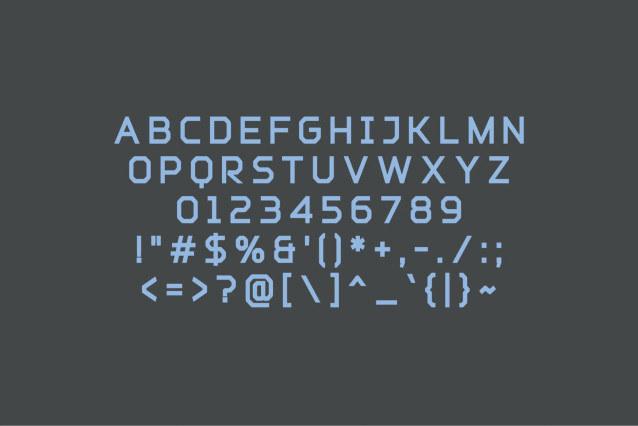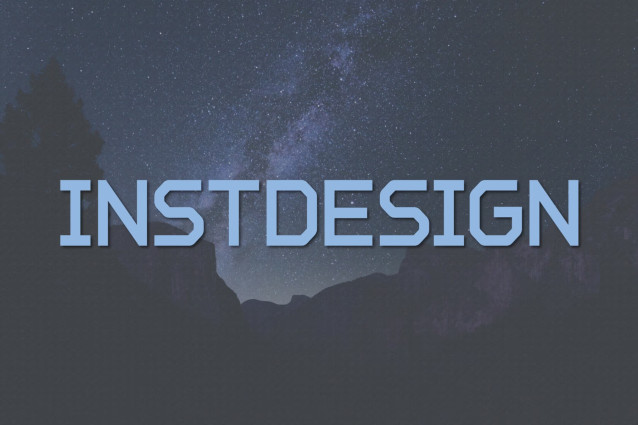
Instdesign Font
Instdesign Font – a modern, classy sans serif typeface. A sans serif typeface that contains upper characters, number 0-9 and a range of punctuation and symbols. An extremely versatile font, perfect for logos, weddings, invitations, quotes, advertisements, print, magazines, and more!